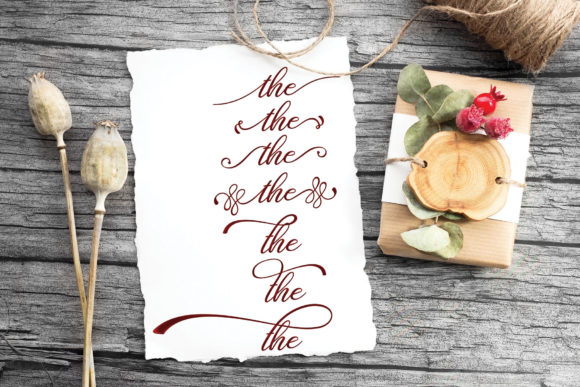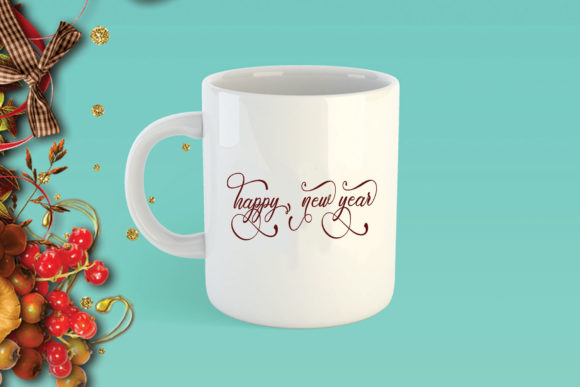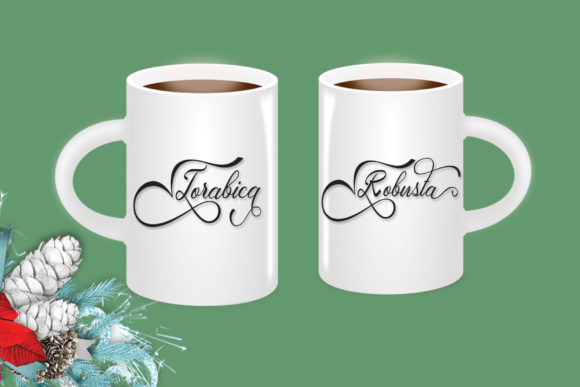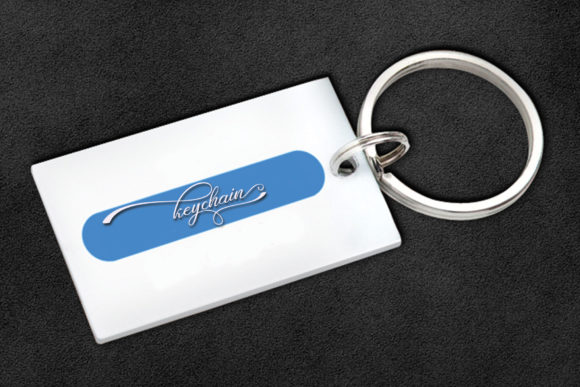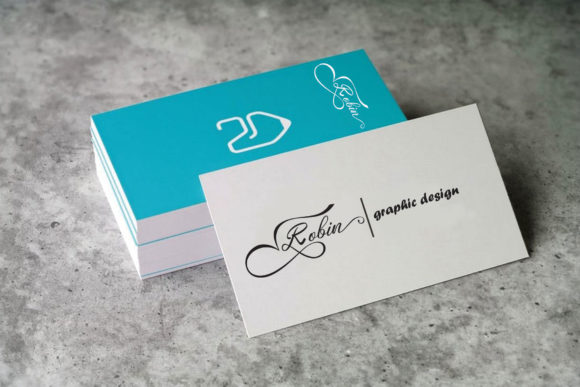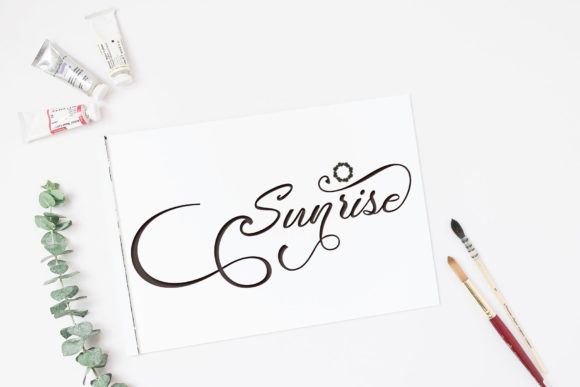
Introduction to Mountain Script Font
Have you ever been working on a creative project, pouring your heart and soul into it, and suddenly, you need that perfect font to elevate it to the next level? That’s exactly what happened to me last week while designing a wedding invitation. I was searching for a font that would convey the couple’s elegance and sophistication, and that’s when I stumbled upon the Mountain Script Font. Its beautiful, flowing script caught my eye, and I knew I had found the perfect match.
As a designer, you know how crucial it is to have access to high-quality design resources like the Mountain Script Font. This font is perfect for adding an authentic touch to your designs, whether it’s a title, signature, logo, or correspondence. With its elegant style, it’s sure to bring a luxurious and chic touch to any project.
Key Features of Mountain Script Font
- High-quality, hand-drawn design for a unique and creative touch in any project
- Unique, cursive script style with a natural, handwritten feel, ideal for titles, headings, and quotes in design projects
- Perfect for use in digital design, print media, and web design, making it a versatile design resource for creative professionals
Honest Review: Mountain Script Font
I’ve had the chance to work with Mountain Script Font, and I’m excited to share my honest thoughts on this popular design resource. ✨
- High-quality strokes and letterforms give this font a unique, hand-written feel.
- ⚠️ Limited character set: Mountain Script Font may not have as many characters as other fonts, which can be a challenge for complex projects.
- ⚠️ Not suitable for small text: The font’s size and style make it difficult to read in small sizes.
Overall, I think Mountain Script Font is a great design resource for creative projects that require a unique, high-quality font. While it may have some limitations, its free download and transparent background make it a great option for designers looking for a free font.
How to Use Mountain Script Font
Mountain Script Font is ideal for creative projects that require a unique, handwritten touch. Use it for wedding invitations, party decorations, or social media graphics. The font’s high-quality design and transparent background make it a valuable design resource for any project.
To get the most out of Mountain Script Font, experiment with different font sizes, colors, and styles to create a unique visual effect. Combine the font with other design elements, such as graphics or images, to add depth and interest to your design.
Alternatives to Mountain Script Font
Great Vibes is a high-quality script font suitable for creative projects, especially those that require a modern and elegant touch. It’s a great alternative to Mountain Script Font when you need a more contemporary feel. You can download Great Vibes for free from DaFont, a popular design resource website. It’s ideal for use on transparent backgrounds, making it perfect for digital designs like infographics, social media graphics, and presentations.
Great Vibes and Mountain Script Font share similarities in their flowing and cursive nature, but Great Vibes has a more modern and sleek design. It’s also more versatile and can be used for a wider range of design projects.